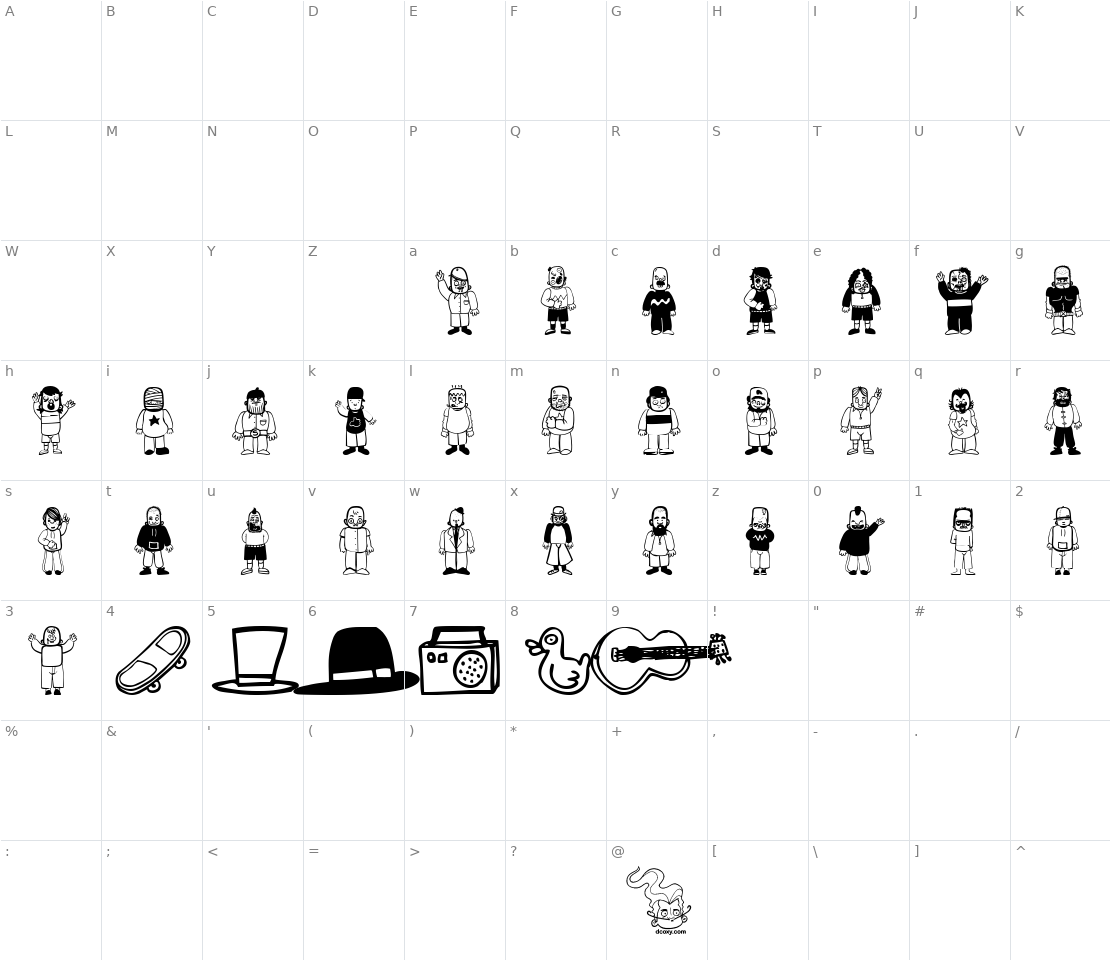
Teubé Tribute
Teubé Tribute is a character font from dcoxy and Greg Medina where each glyph is a small black-and-white illustrated figure rather than a traditional letter. The drawings have a quirky, comic-strip quality with loose linework and exaggerated poses, giving the set a playful, hand-drawn personality. Useful for decorative borders, spot illustrations, or adding cartoon characters to layouts without needing separate image files.